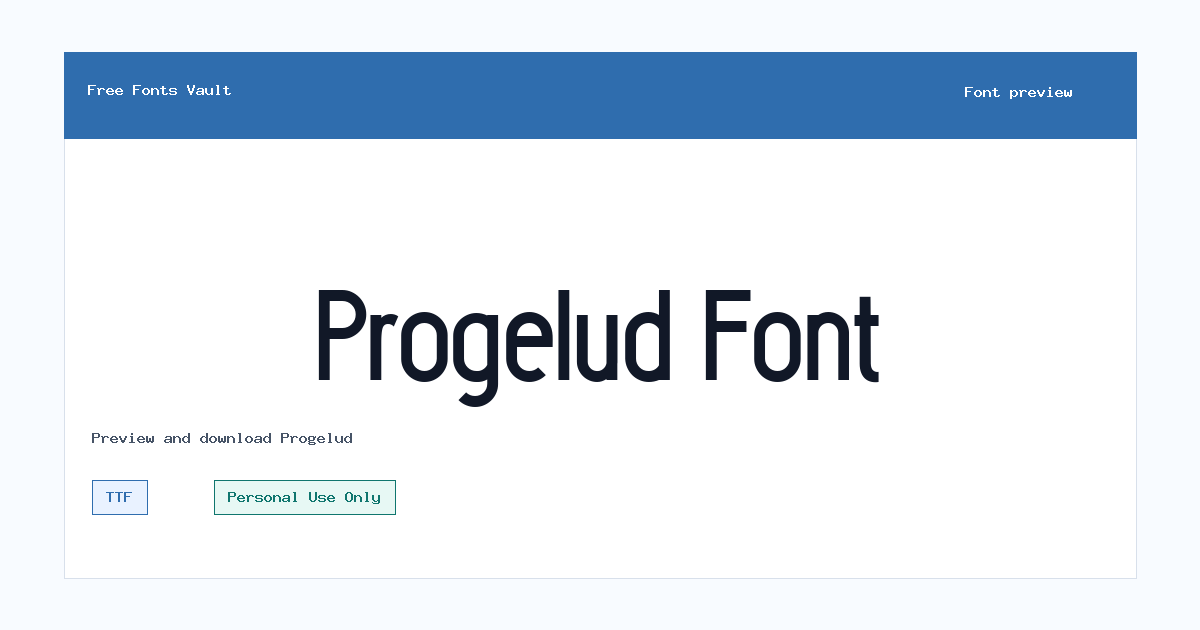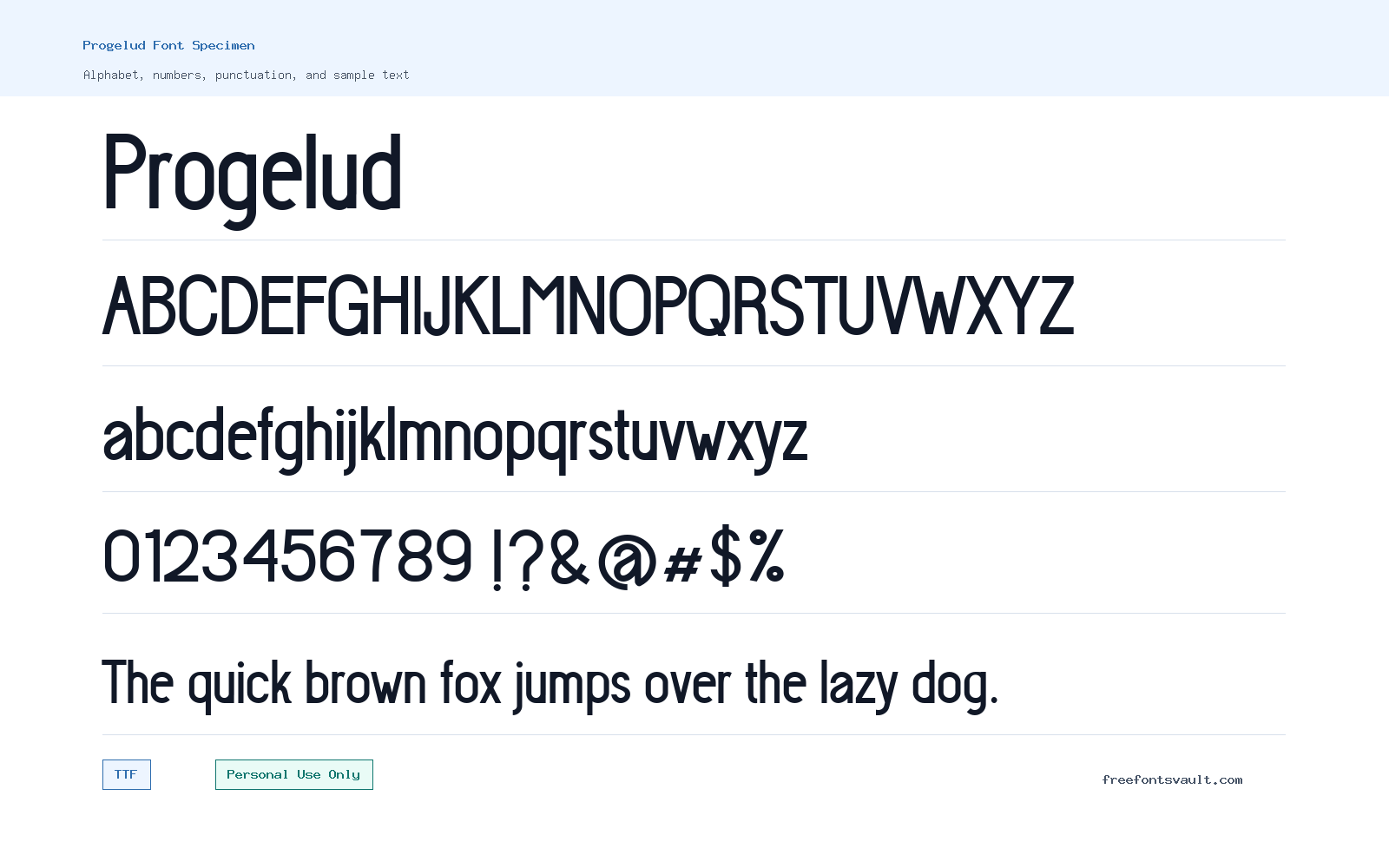
Progelud
- Designer Dian Haniffan Hadi
- Foundry Letterbeary
Progelud is a personal-use font from Dian Haniffan Hadi and Letterbeary, offered in a regular TTF style for visitors who want to test it in previews before downloading.
About Progelud Font
Progelud is presented as a sans serif font, and the downloadable file is a regular-weight TTF. With only one style included, it is best treated as a display or headline choice rather than a full text family. Try it with short words, names, title lines, and logo-style mockups in the preview tool so you can judge spacing, letter shapes, and readability before using it in a design.
Because the available package is a single regular style, Progelud will work best where you do not need a complete set of weights such as light, bold, italic, or condensed styles. Use it for personal posters, social graphics, invitation drafts, thumbnails, practice branding, and other short text layouts. For longer reading sections, pair it with a simpler body font and keep Progelud for headings or accents so the page stays easy to scan.
- Single-style personal-use font, useful for testing short display text and simple layout ideas.
- Personal posters, social media graphics, thumbnails, and title treatments.
- Short headings, name designs, mock logos, and creative practice projects.
Progelud is credited to designer Dian Haniffan Hadi, with Letterbeary listed as the foundry.
What should I use Progelud for?
Use it for short personal designs such as headings, posters, social images, thumbnails, and mock branding. Test it carefully before using it for long text.
Who designed Progelud?
The font is credited to Dian Haniffan Hadi, with Letterbeary listed as the foundry.